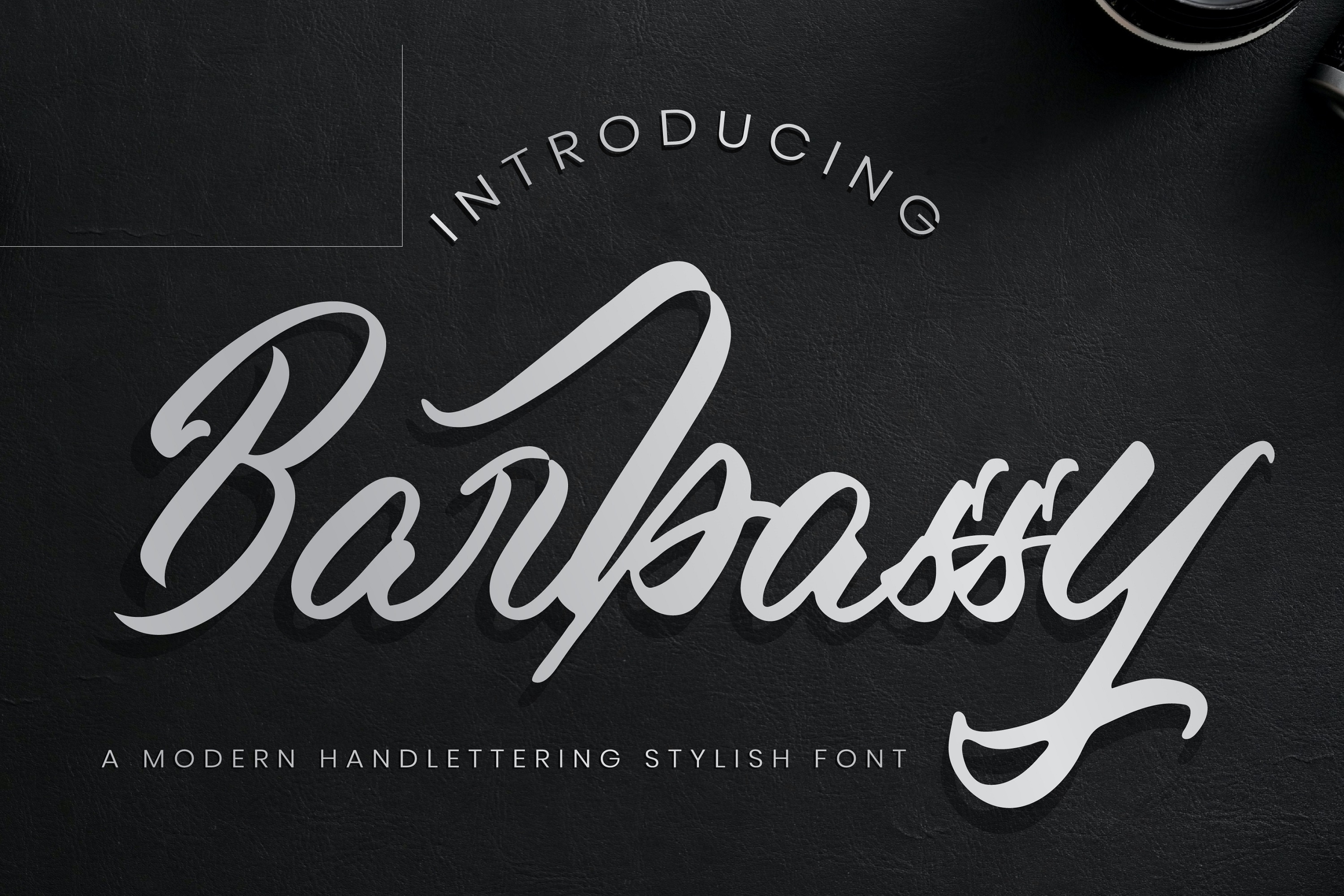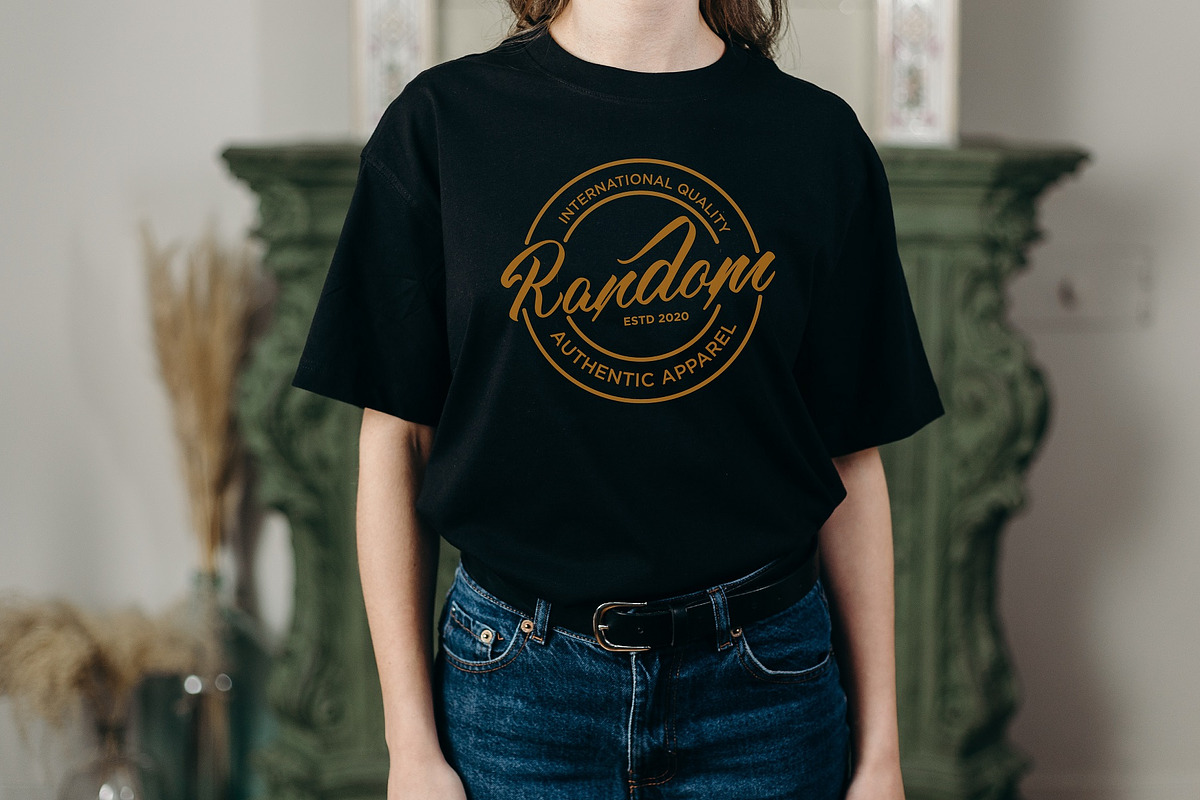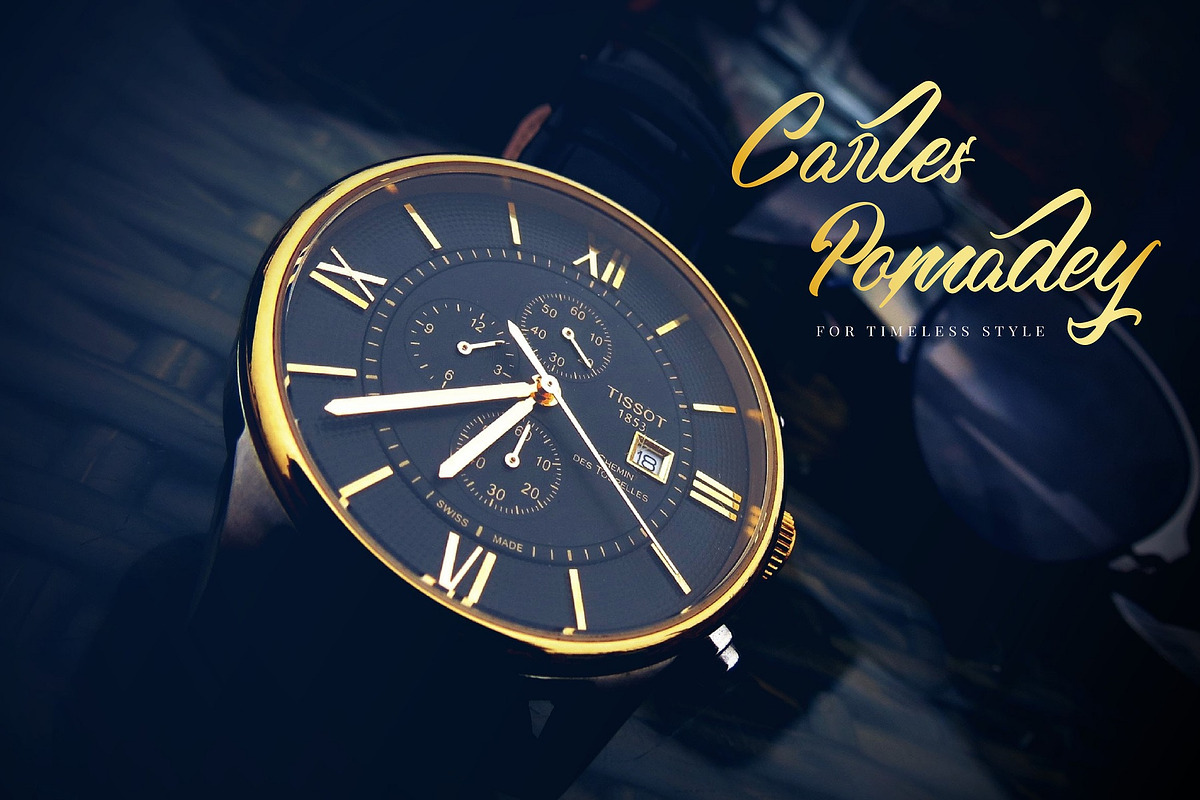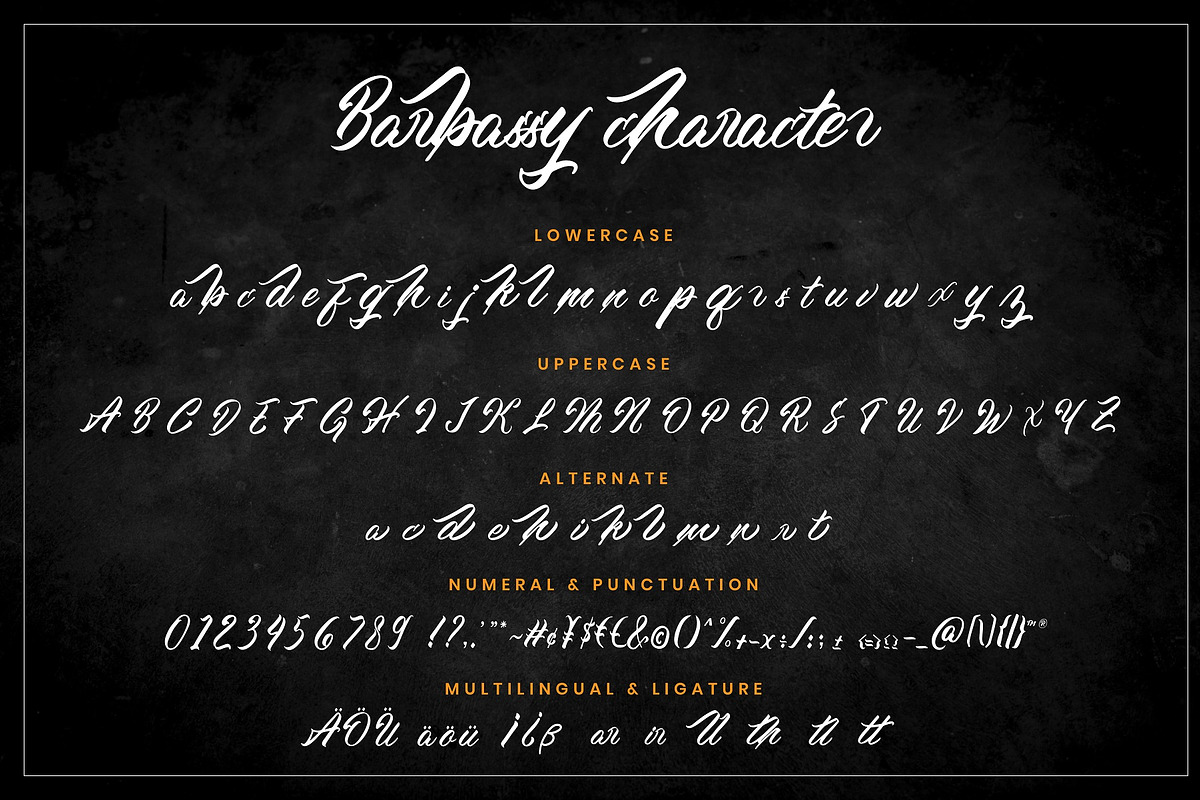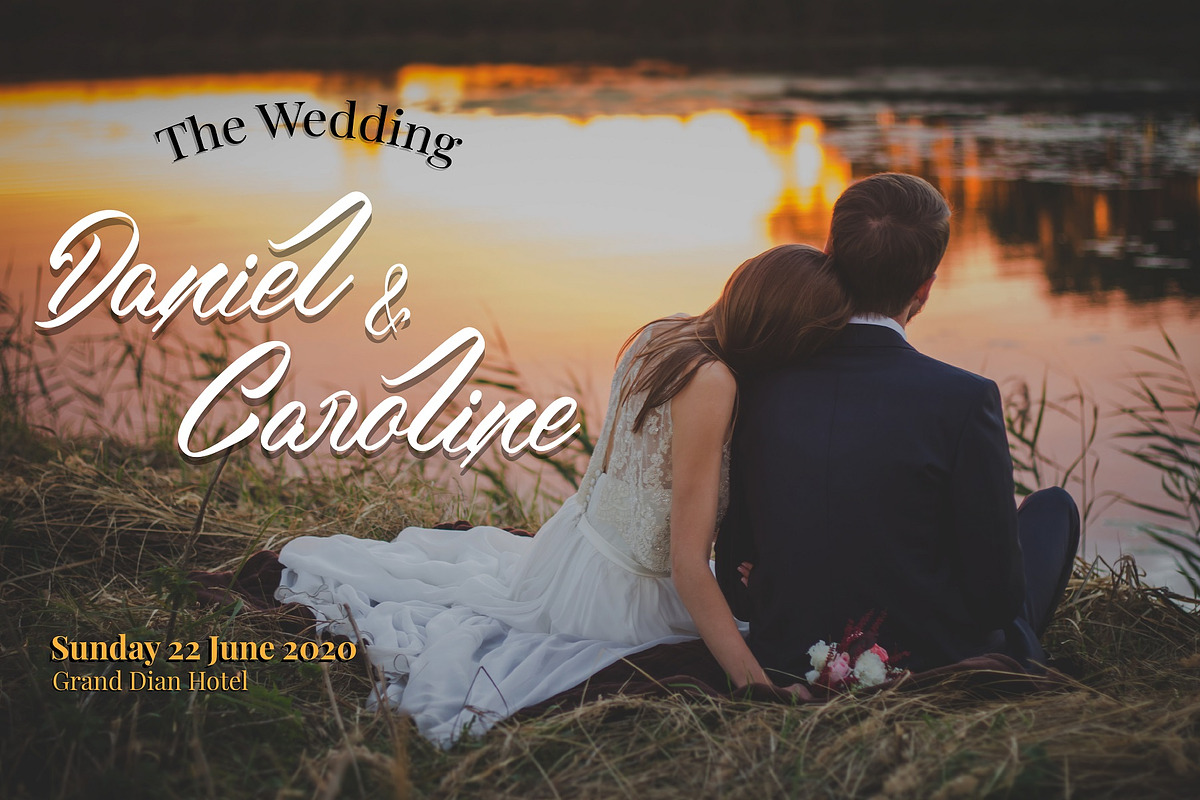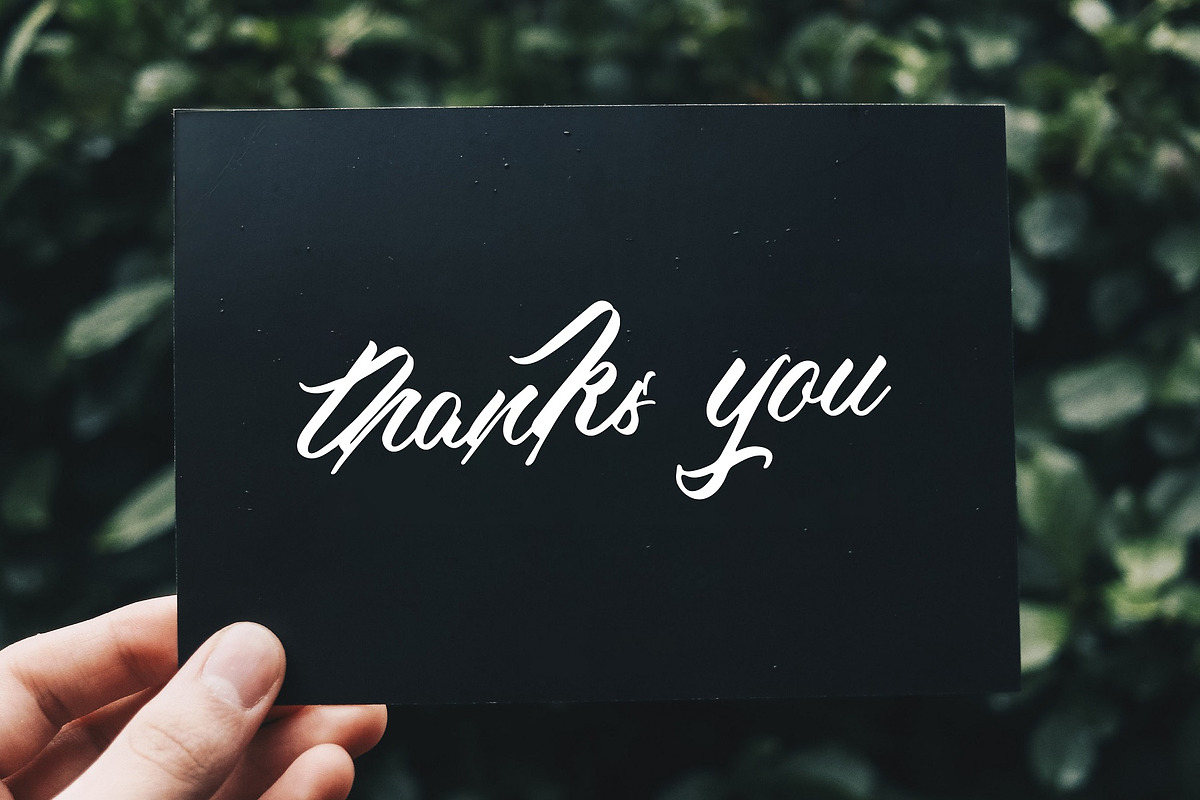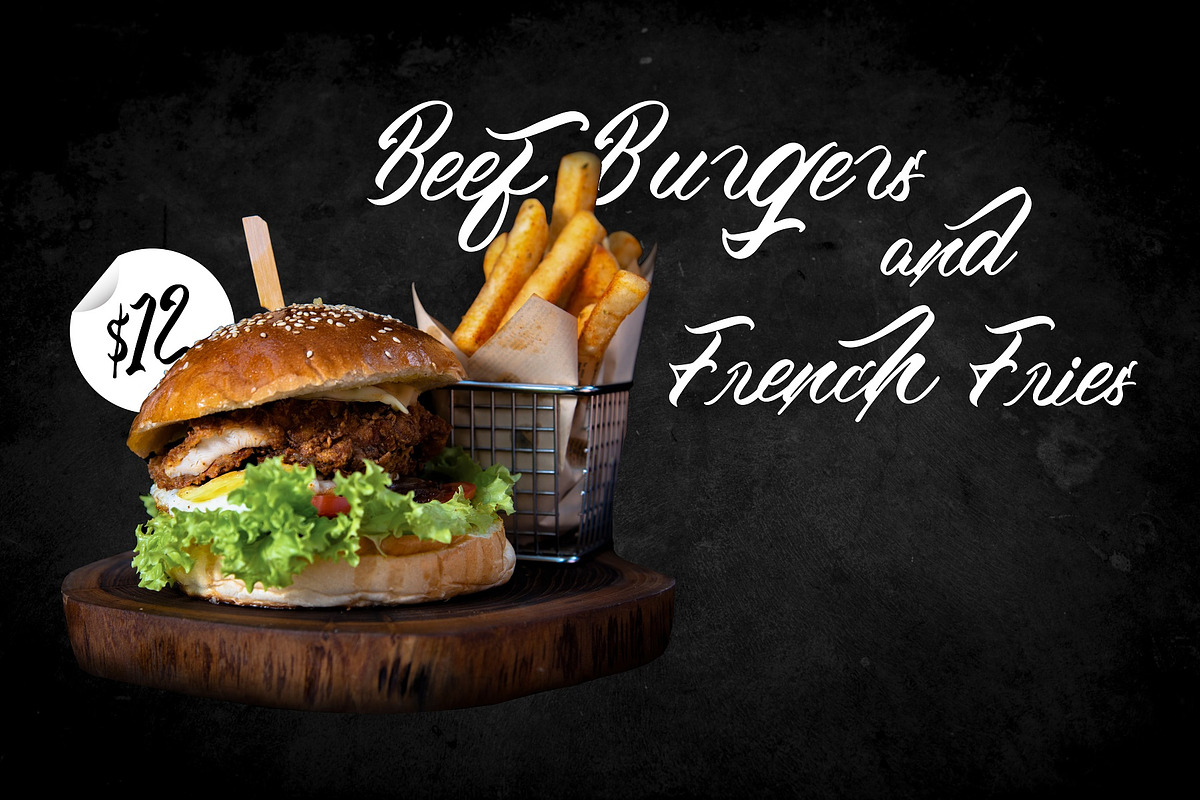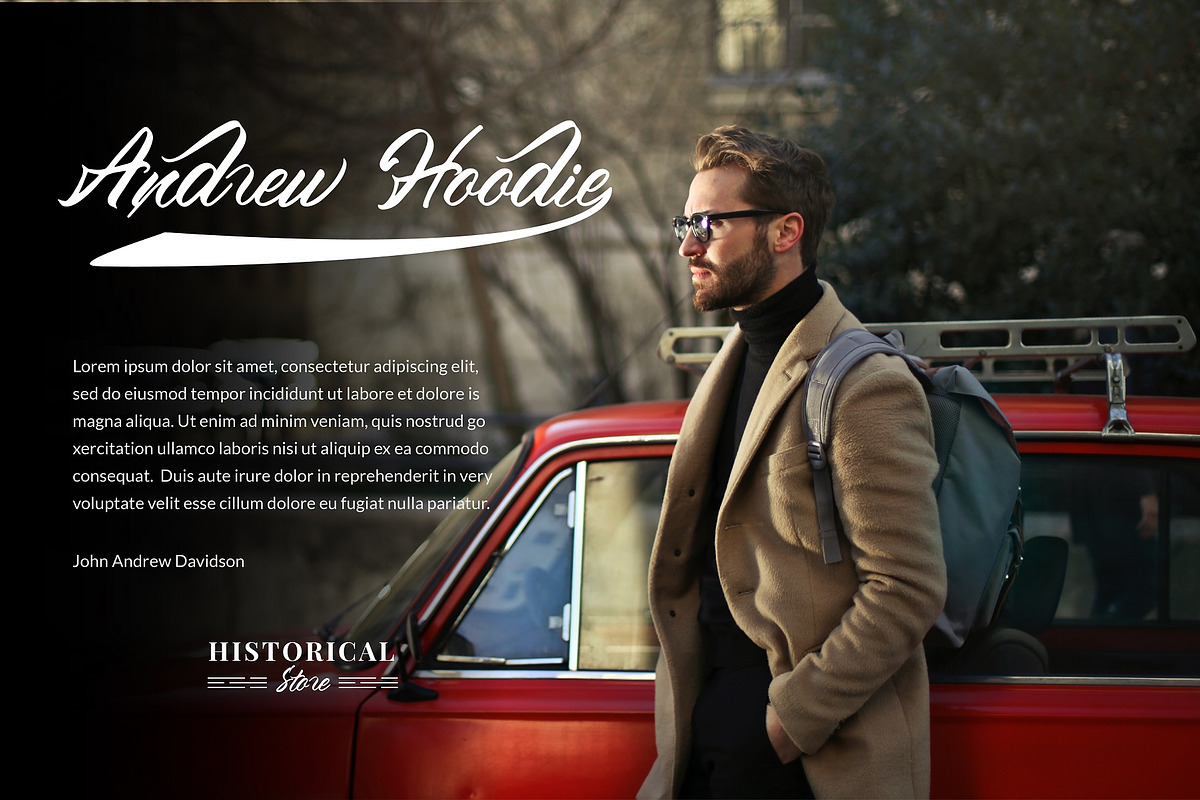
Barbassy a modern handlettering Font
Introducing Barbassy is a modern hand lettering script. This font is made by handwriting directly using a brush pen so that it can produce fonts that have character and artistic.
Barbassy would perfect for photography, watermark, social media posts, quotes, logos & branding, invitation, product designs, label, stationery, wedding designs, product packaging, special events or anything that need handwriting taste.
- Ligature and Stylish Set
- Fonts include multilingual support